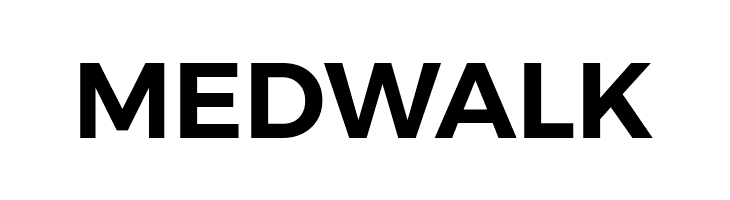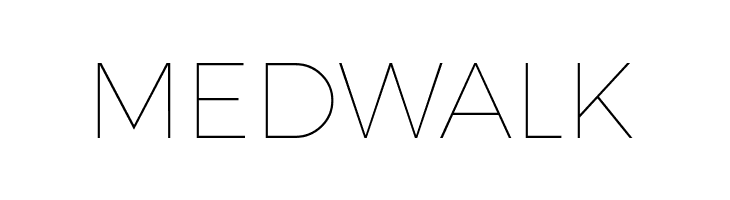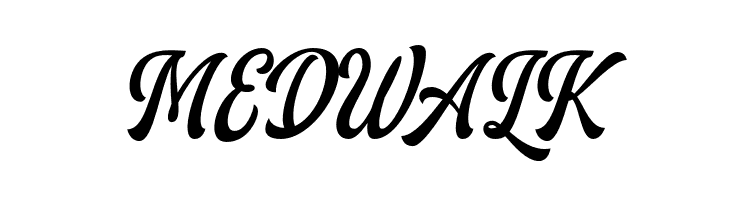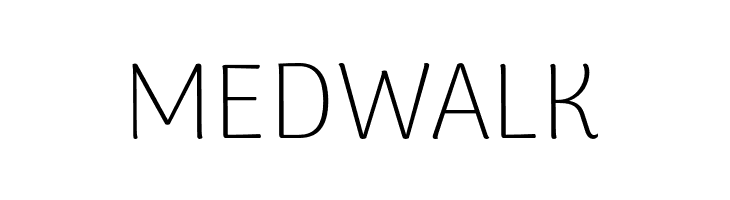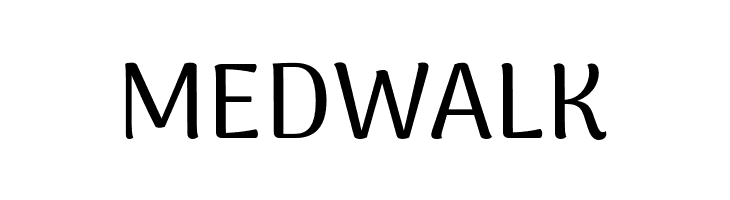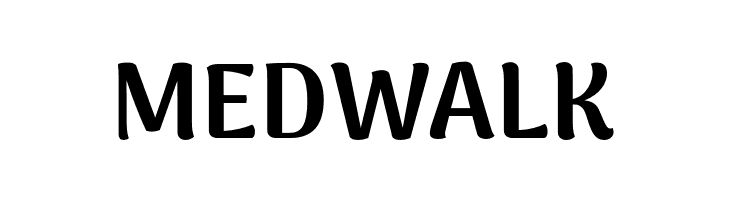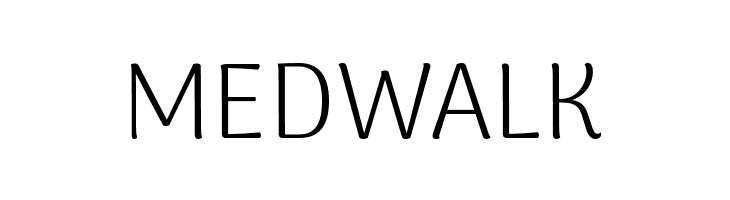
A modern, semi-bold sans-serif font with clean lines and balanced proportions.
A sleek, modern font with thin lines and balanced spacing.
A decorative, modern font with parallel line detailing and geometric structure.
A flowing, cursive script with elegant loops and swashes.
A flowing, elegant cursive script with interconnected letters and bold uppercase characters.
A bold, rounded font with a playful and friendly style.
A clean, modern font with smooth curves and consistent stroke width, offering elegance and readability.
A clean, modern font with rounded edges and consistent stroke width, offering excellent readability.
A playful and friendly typeface with rounded edges and a modern vibe.
A playful and friendly font with rounded edges and a whimsical style.